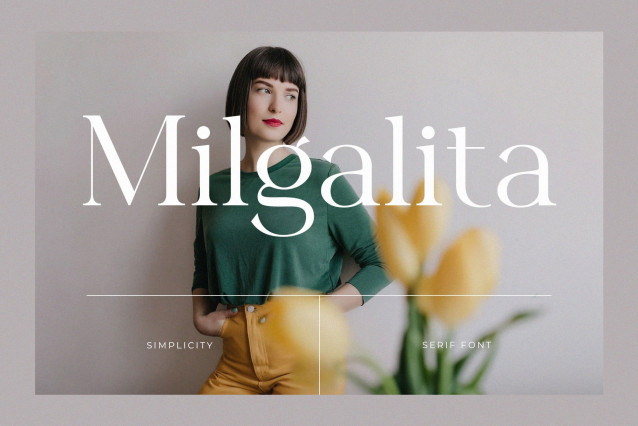
Milgalita Font
Milgalita Font is a modern and classy typeface, best used as a display for headings, logos, branding, magazines, product packaging and invitations. Milgalita come with clean lines and smooth curves give any project an extra touch of class.